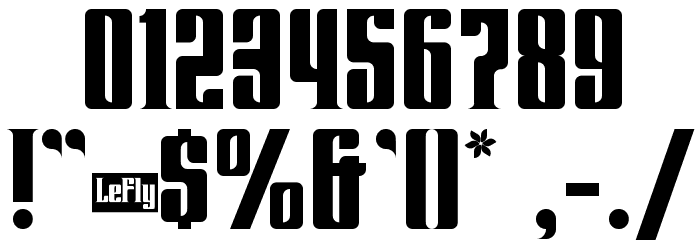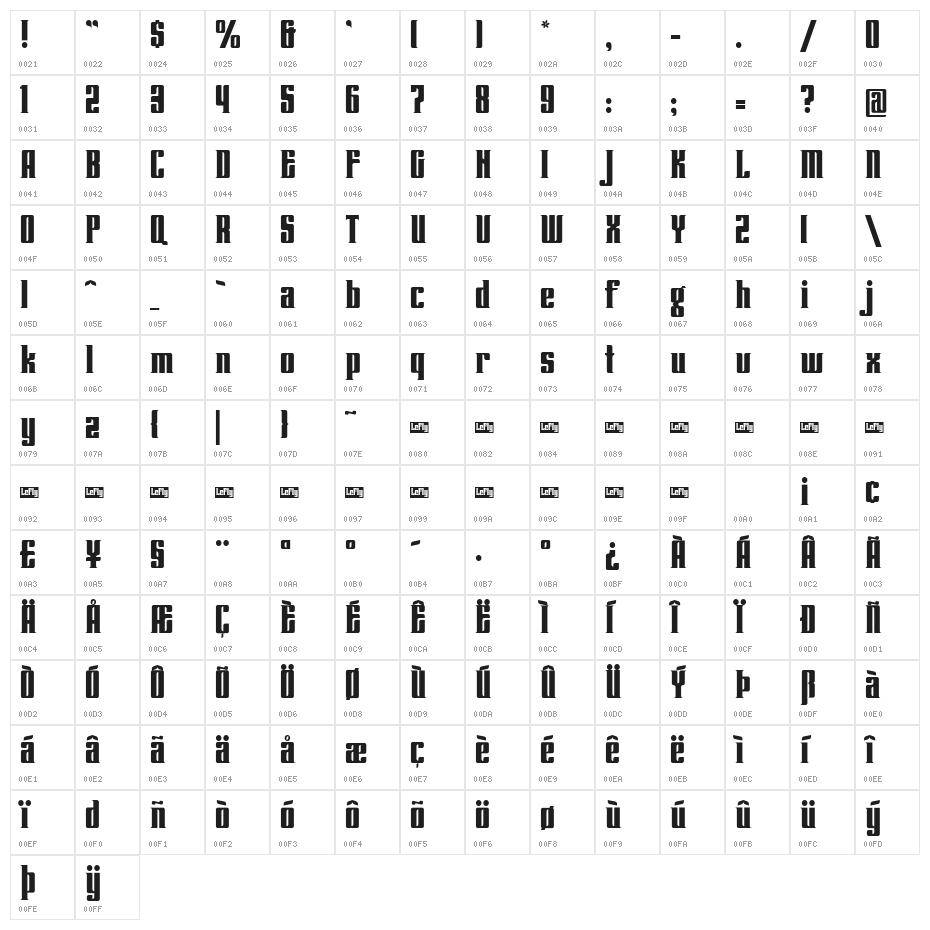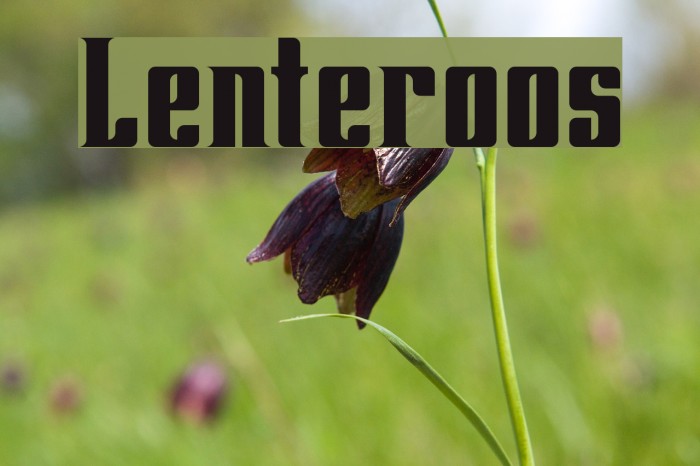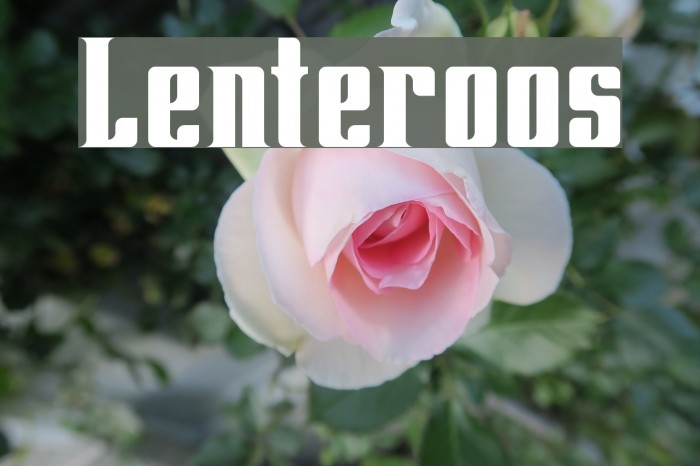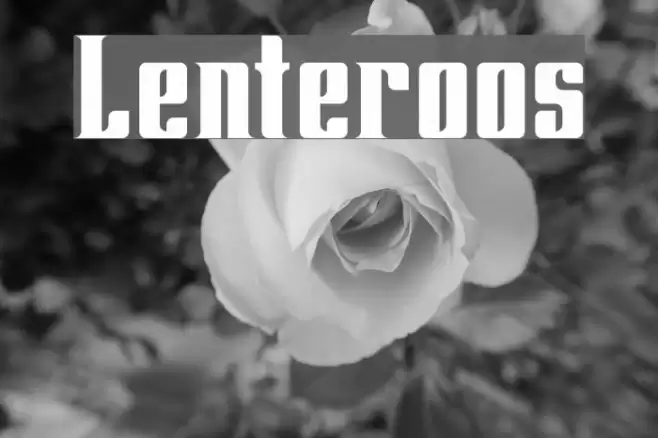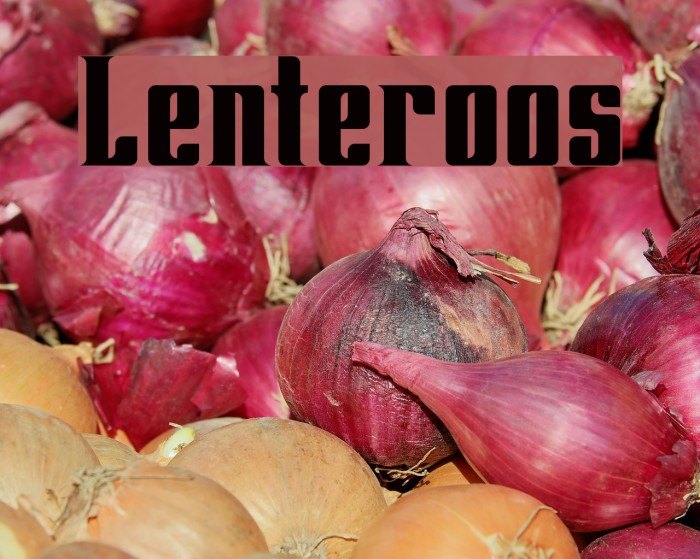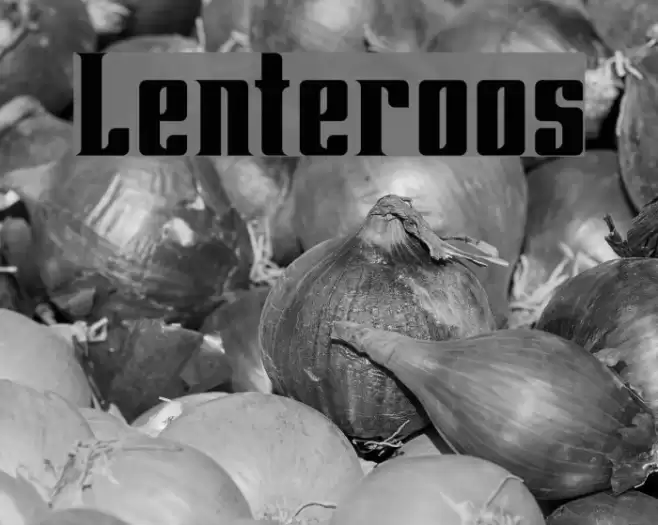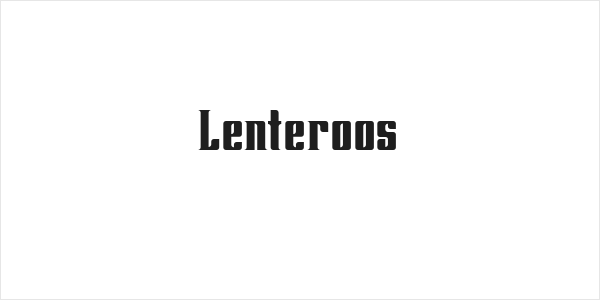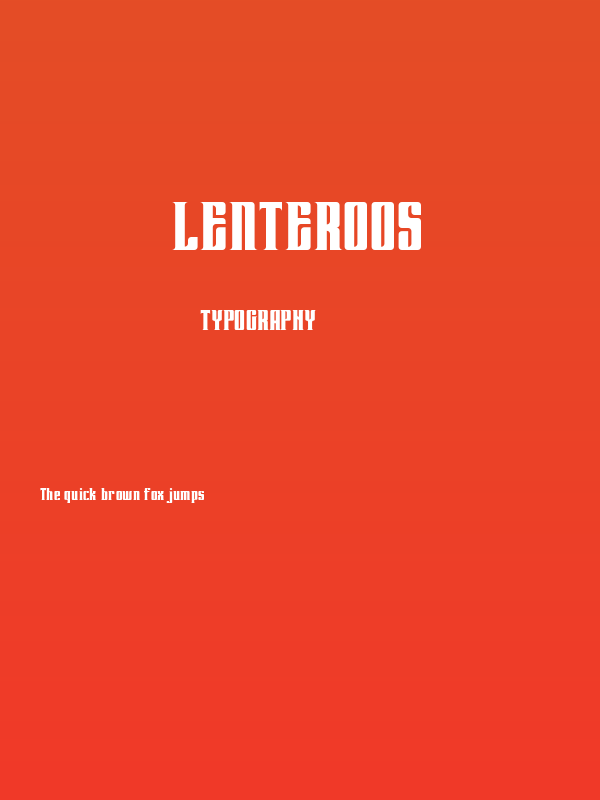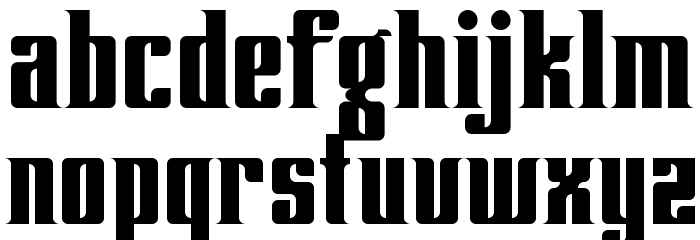
Lenteroos Font
Lenteroos Description
This font features a bold and striking design with a strong presence. The characters are tall and narrow, with a distinct slab serif style that gives them a commanding appearance. The uppercase letters are particularly prominent, with sharp angles and a robust structure. The lowercase letters maintain the same boldness, ensuring consistency across the typeface. Numbers and special characters are equally bold, making them stand out. The overall design is reminiscent of vintage poster fonts, with a modern twist that makes it suitable for contemporary use.
| Overall Style | Vintage, Modern |
| Proposed Projects | Ideal for posters, headlines, branding, and any project requiring a strong visual impact. |